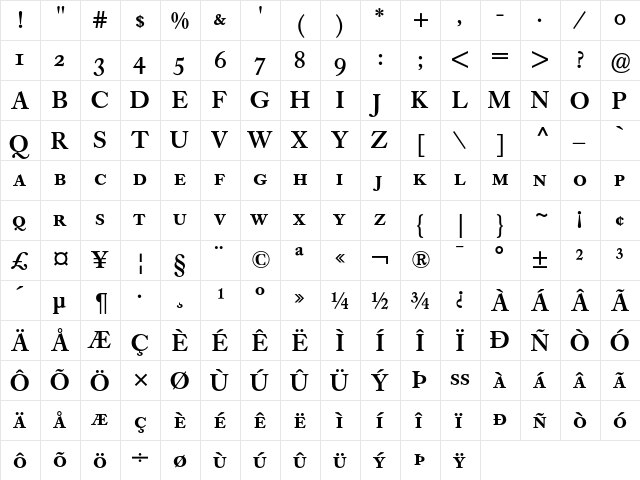
Caslon Book BE Medium Small Caps & Oldstyle Figures
Design Context for Caslon Book BE Typeface
Caslon Book BE brings classic typographic sensibility to the table — its serifs and measured letterforms reflect centuries of print heritage.
Pro Tip: Use Caslon Book BE for editorial body copy and considered headline work. Pair with a neutral sans for UI elements or captions to create a classic hierarchy.